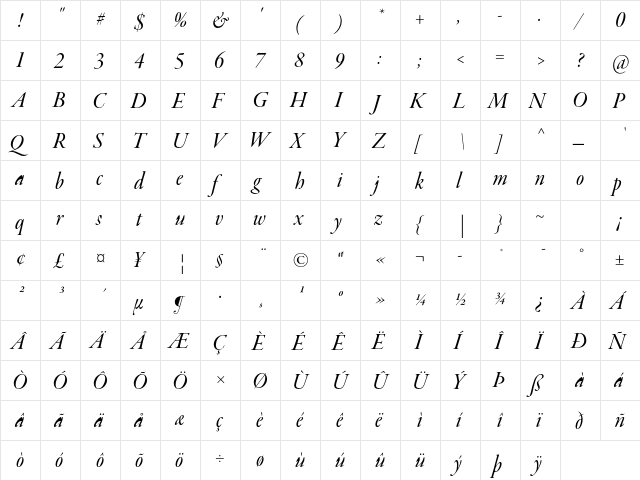
Garamond Premier Pro Medium Italic Display
| Designer | Robert Slimbach |
Design Context for Garamond Premier Pro Typeface
Garamond Premier Pro brings ornamental detail and strong personality to headlines and identities, where visual impact matters more than quiet functionality. The dynamic lean of this cut emphasises speed and emphasis in any layout.
Font Pairing: Pair with a clean neutral sans-serif for body copy to let Garamond Premier Pro's character lead without overwhelming the composition.
Pro Tip: Treat Garamond Premier Pro as the centrepiece of your typographic hierarchy. One strong heading set in a decorative face can carry an entire layout.